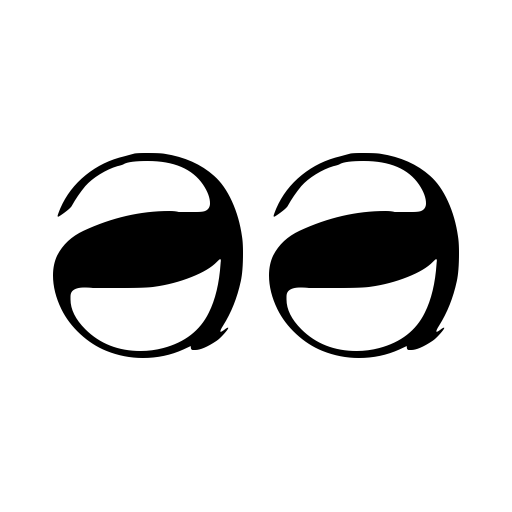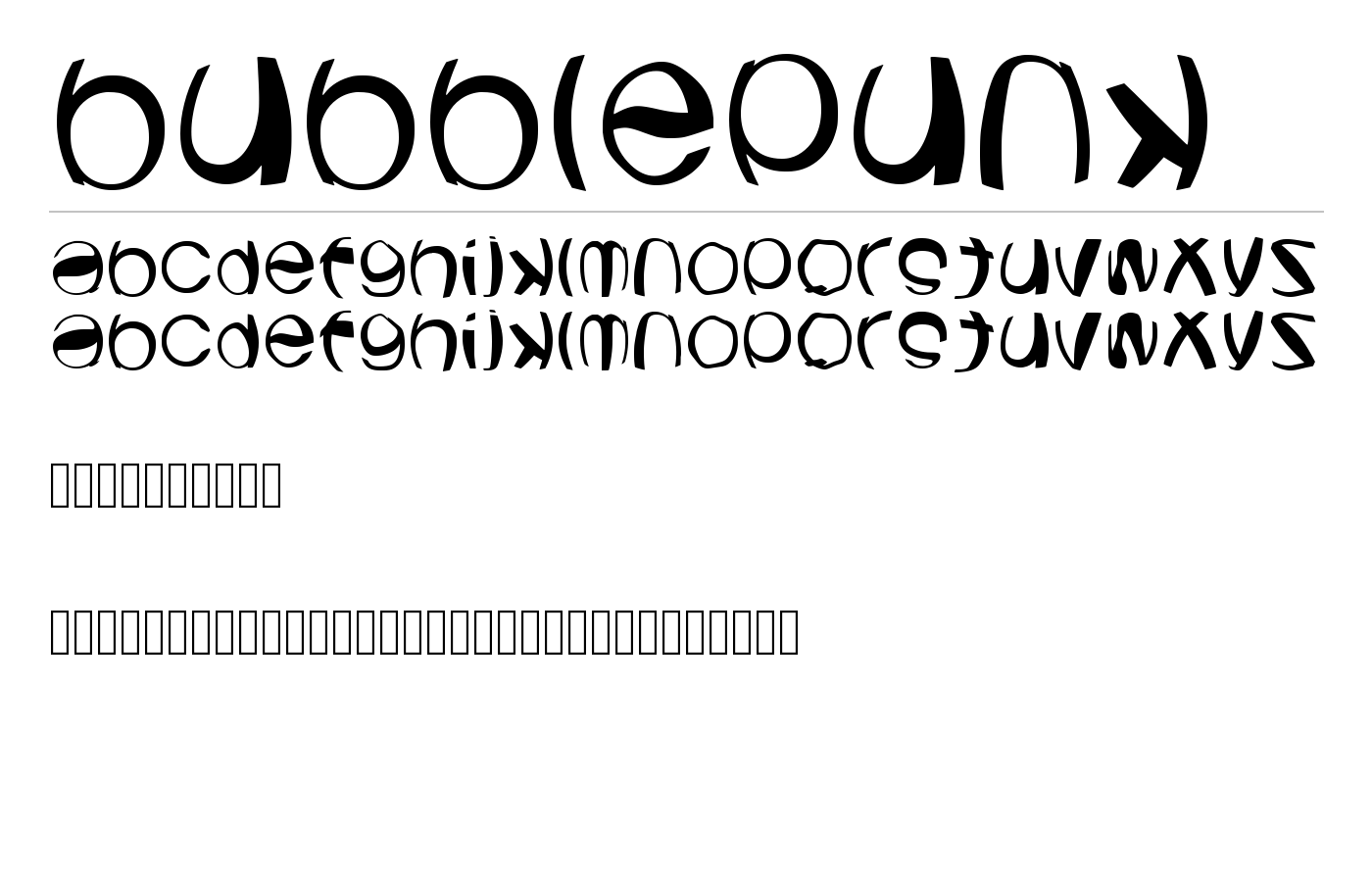
Bubblepunk is a quirky, playful sans serif font characterized by its irregular, warped letterforms that give a sense of movement and fun. Its medium weight and moderately wide letter spacing make it eye-catching for headlines, logos, or creative branding where a lively and unconventional vibe is desired. This font works best in youthful, artistic, or alternative design projects that want to break the mold with a bold and distinctive personality.
Bubblepunk Font
About Bubblepunk Font